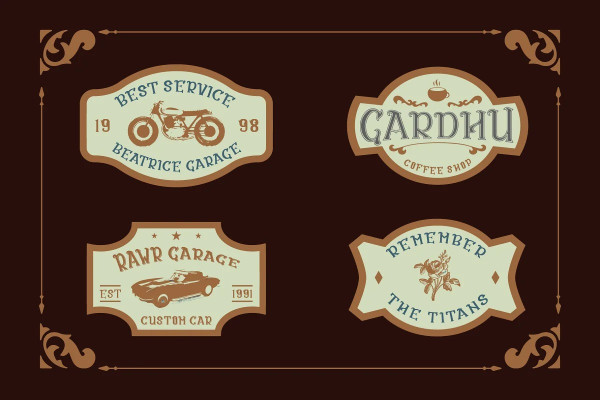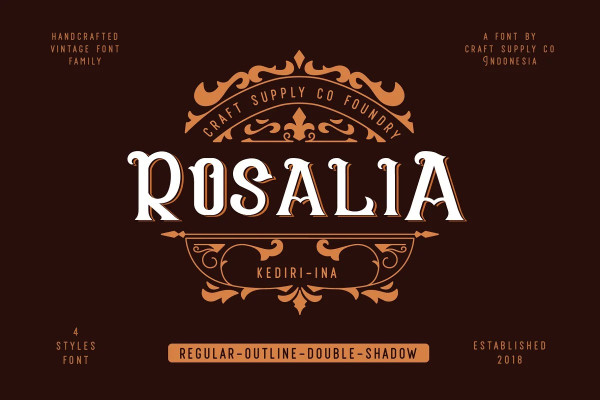
CS Rosalia Font
CS Rosalia Font, includes 4 Style Fonts. It can be used to create almost all types of design projects like print materials. Just use your imagination and your project will become more alive and vivid than ever with one of the CS Rosalia.
You want to make a greeting card or a package design, or even a brand identity, craft design, any DIY project, book title, wedding font, pop vintage design, retro design or any purpose to make your art / design project look pretty and trendy? Feel free to play with all the patterns and shape!